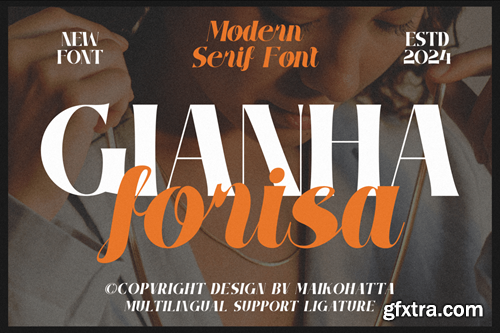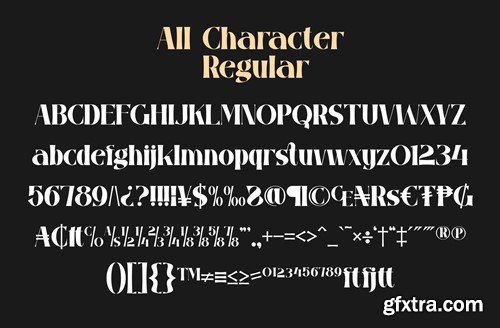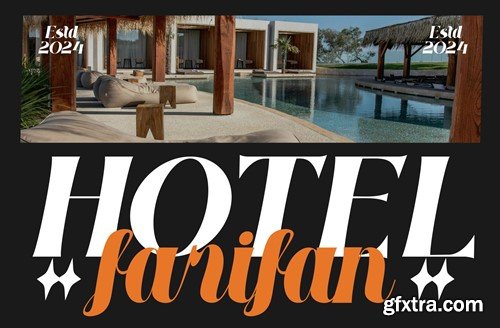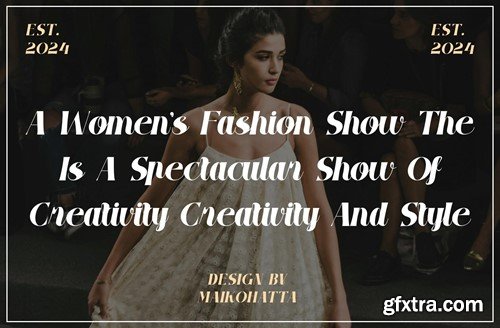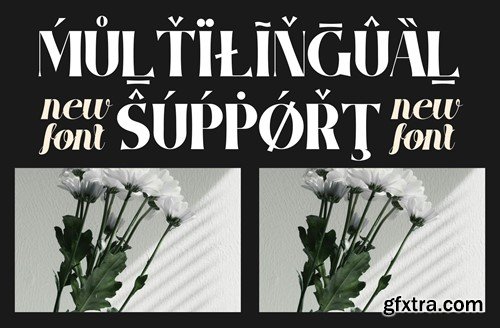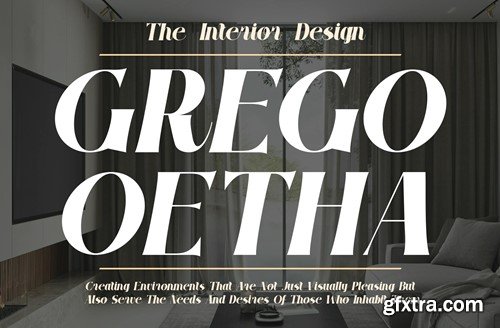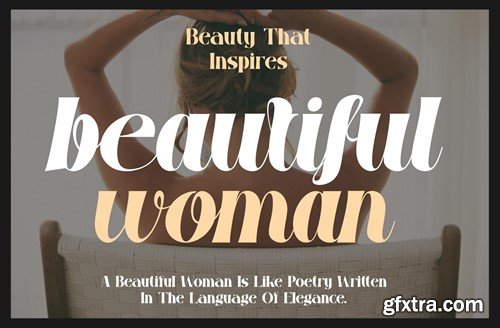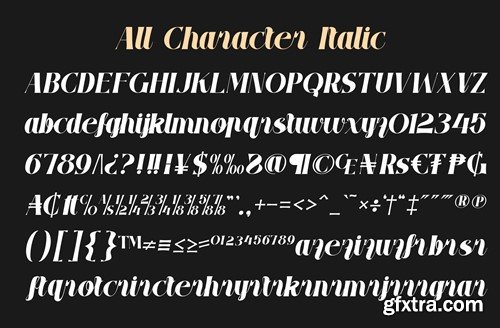
Gianha Forisa - 现代衬线字体 ZV5NUX8
Gianha Forisa - Modern Serif Font ZV5NUX8
Gianha Forisa - Modern Serif Font
Introducing our new product Gianha Forisa - Modern Serif Font
This font features a balanced proportion of stroke thickness and fineness, creating attractive and easy-to-read visuals. This modern serif style is often characterized by a bold distinction between thick and thin lines, providing a touch that is understated but still stands out.
• Uppercase
• Lowercase
• Multilingual
• Ligature